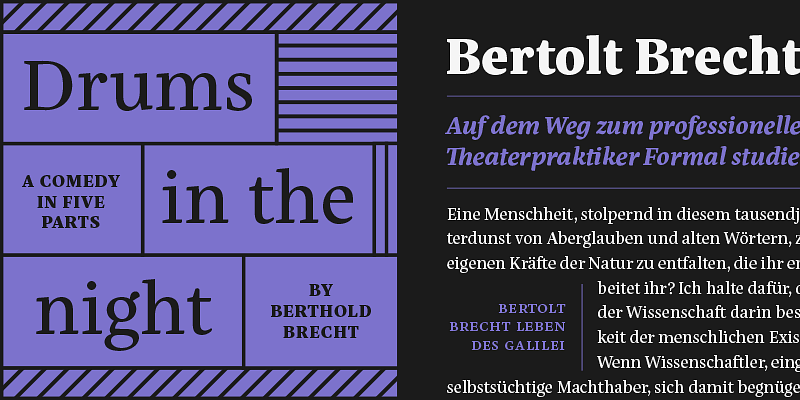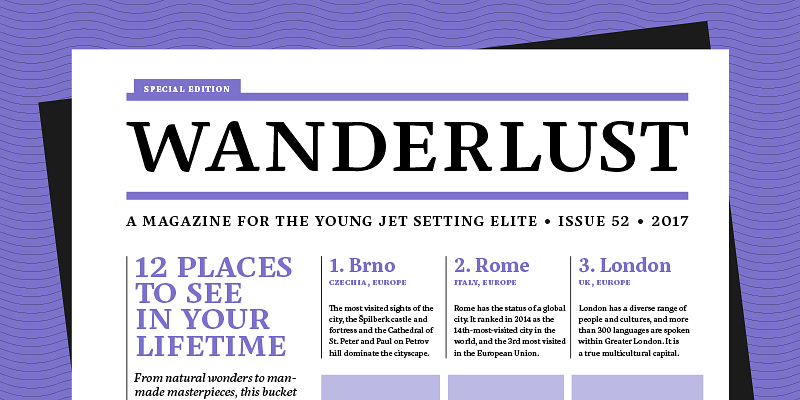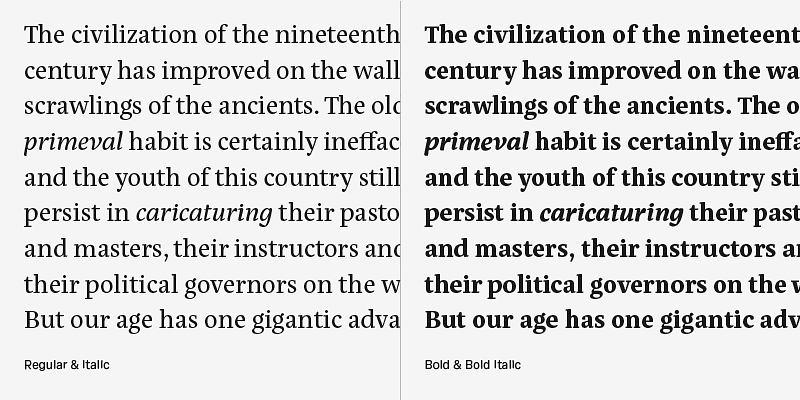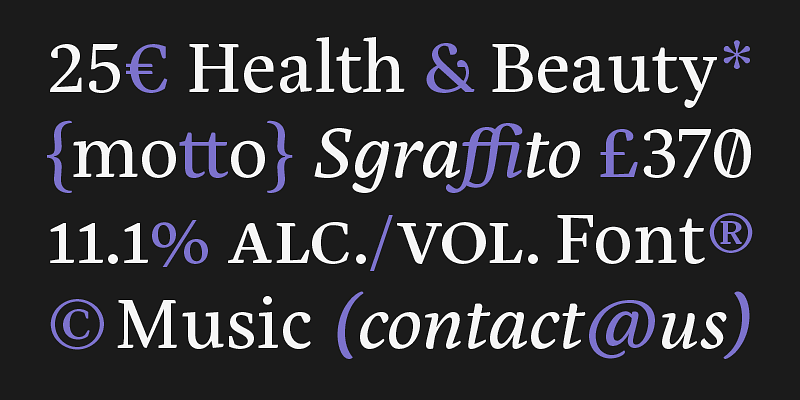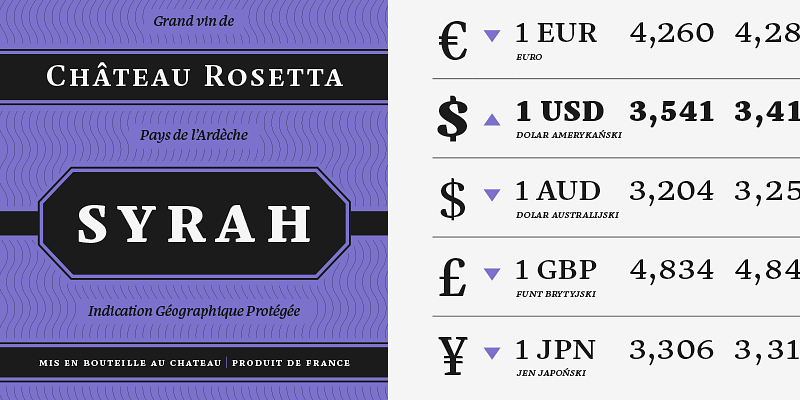
Eskorte means business. This family was designed to take care of your typographic needs, from corporate boardrooms to casual lifestyle publications to identities. The no-nonsense forms convey a sober tone, getting the job done while only occasionally revealing its quirks.